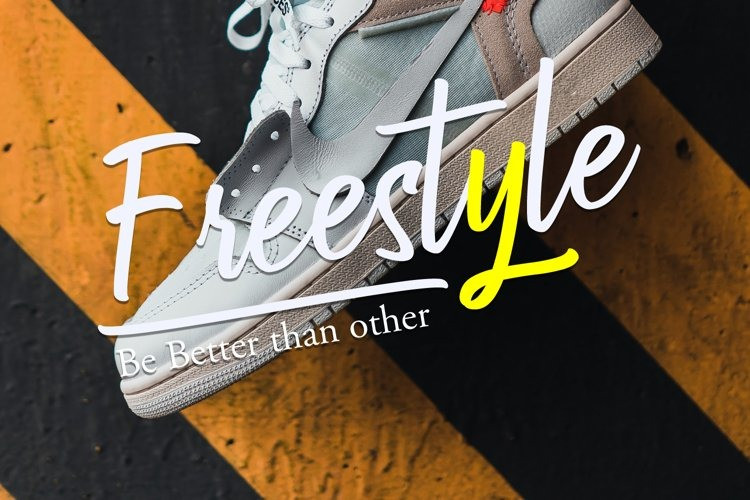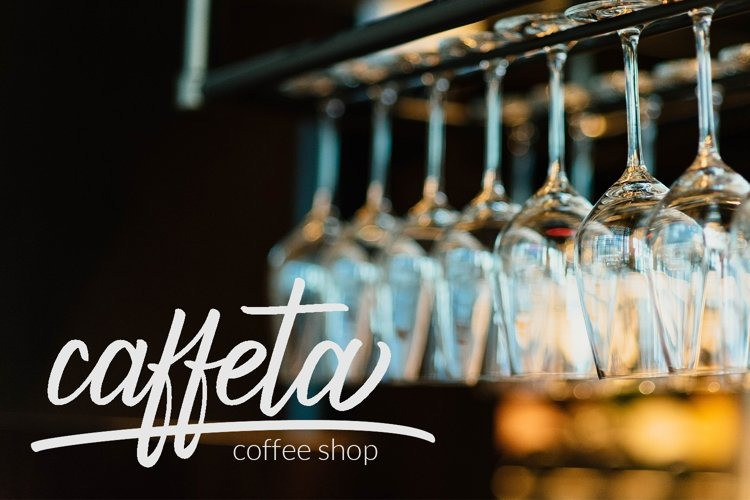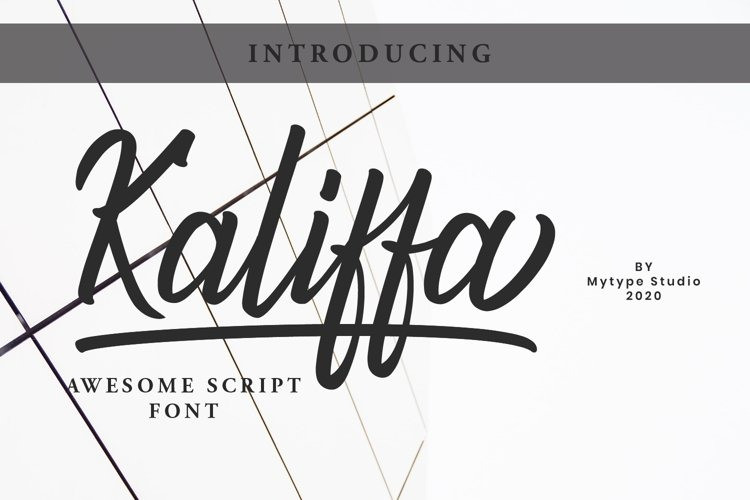
Kaliffa Script Font
Kaliffa Script Font by Mhd Husaini 14,901 downloads
Kaliffa is a script whit bold and strong natural movement, this font is great for various amazing project.